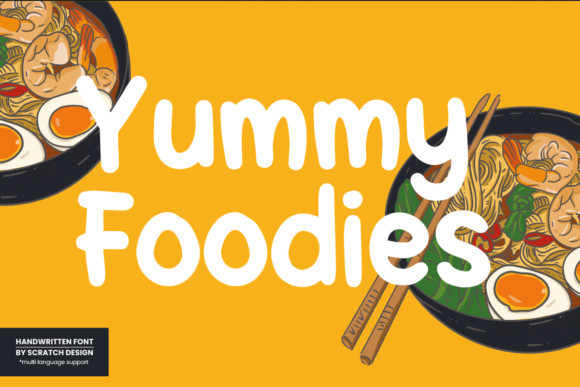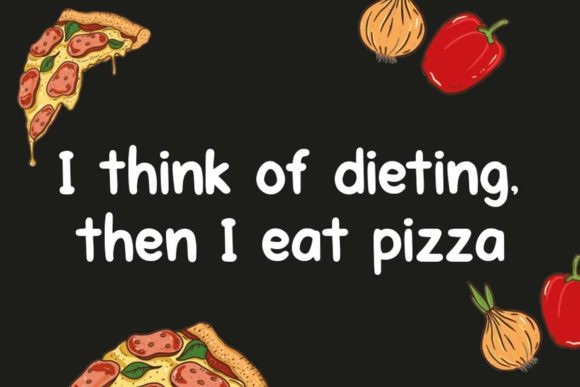
Yummy Foodies Font
Yummy Foodies is an authentic and friendly handwritten font with Sans Serif features. With its easy to read characters, this font is perfect for all of your logos, branding, posters, restaurant menus, websites, crafty DIY projects, and more!